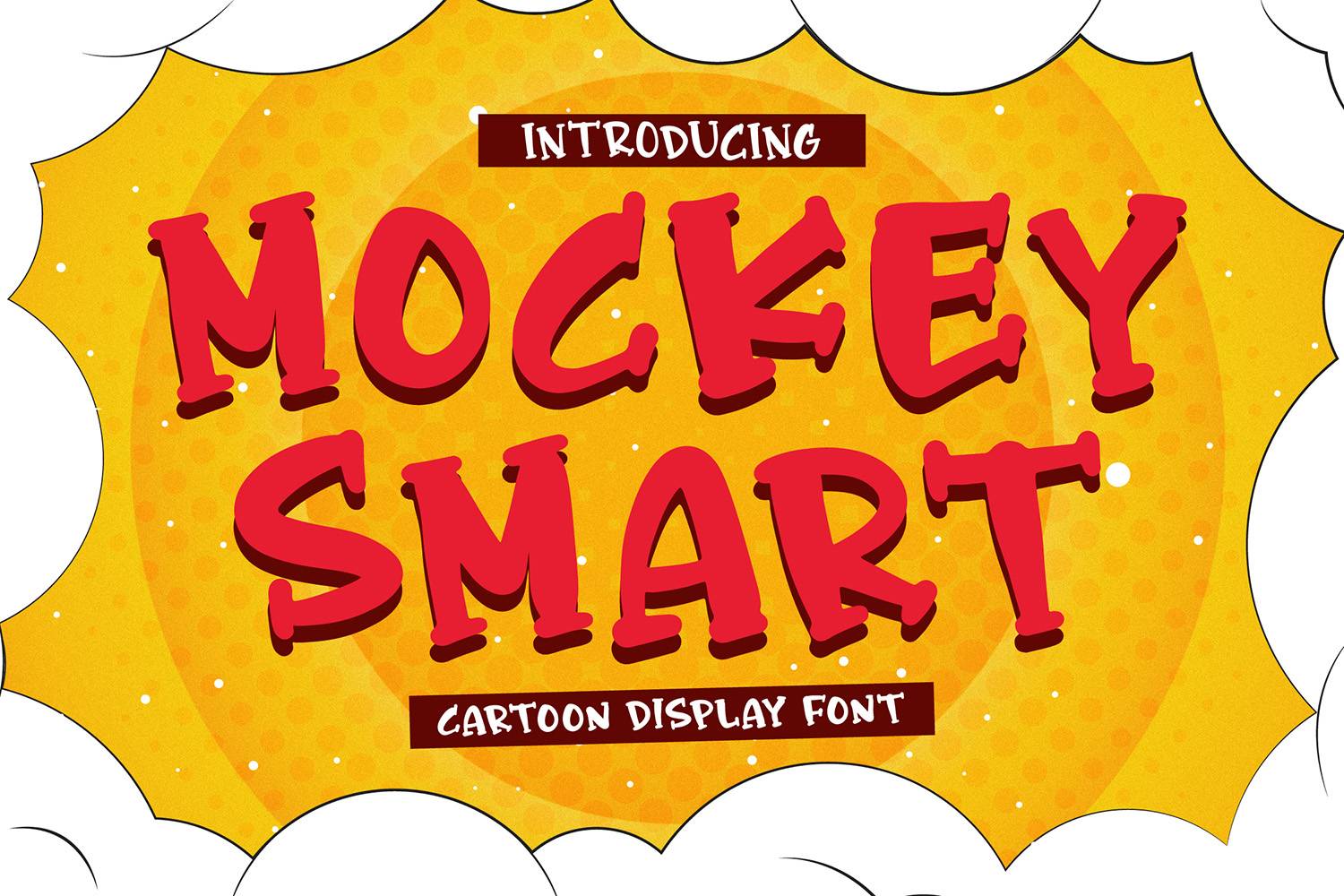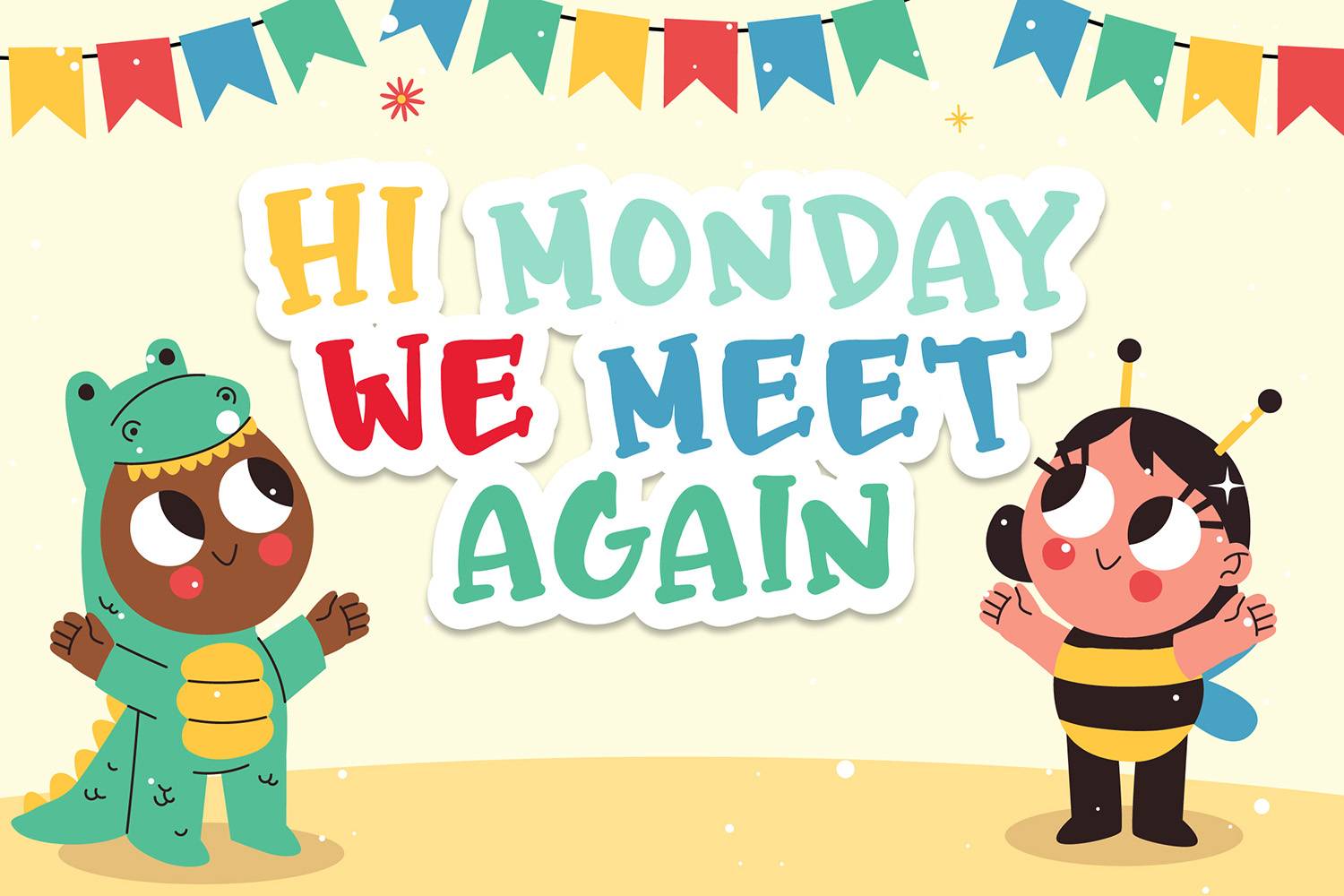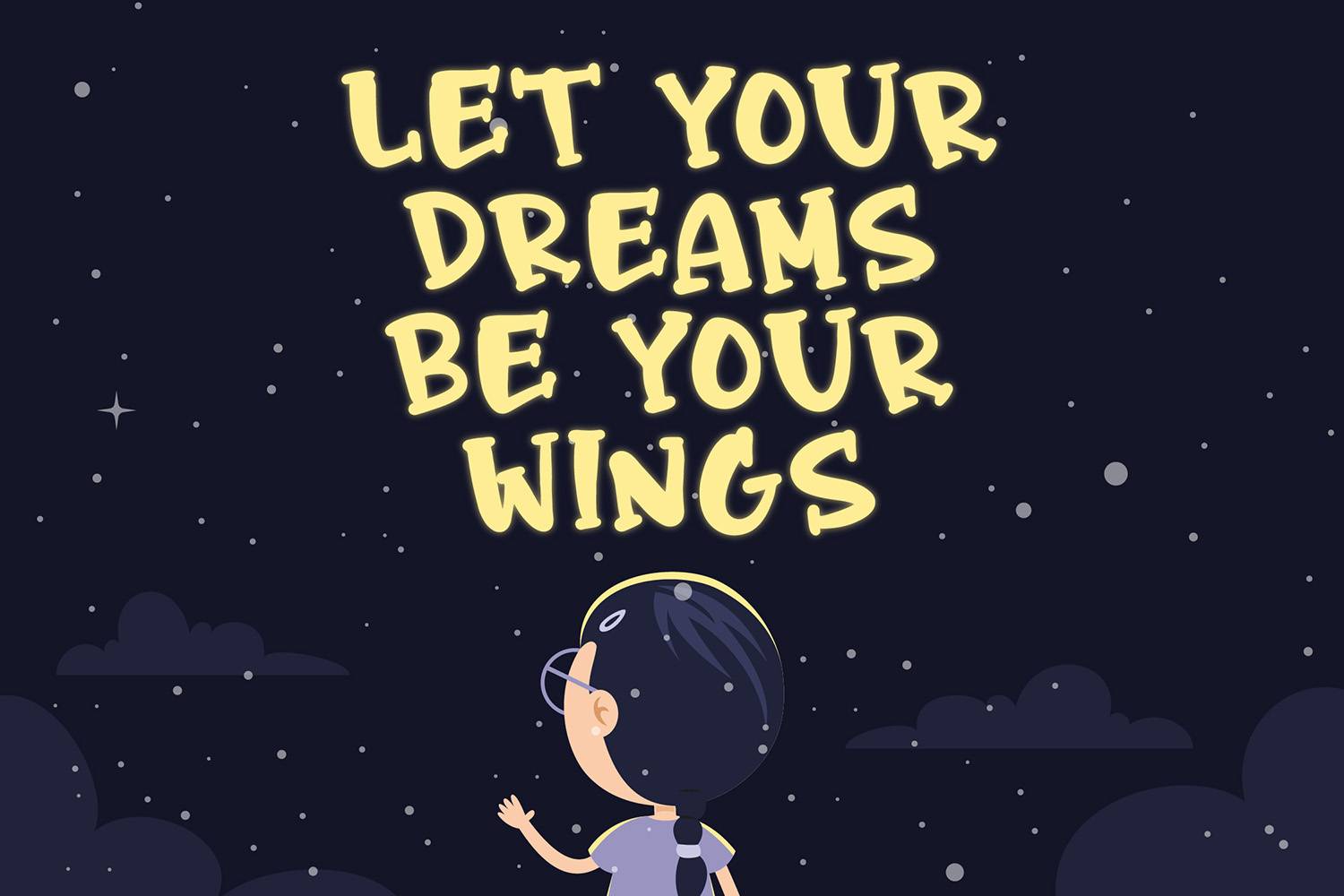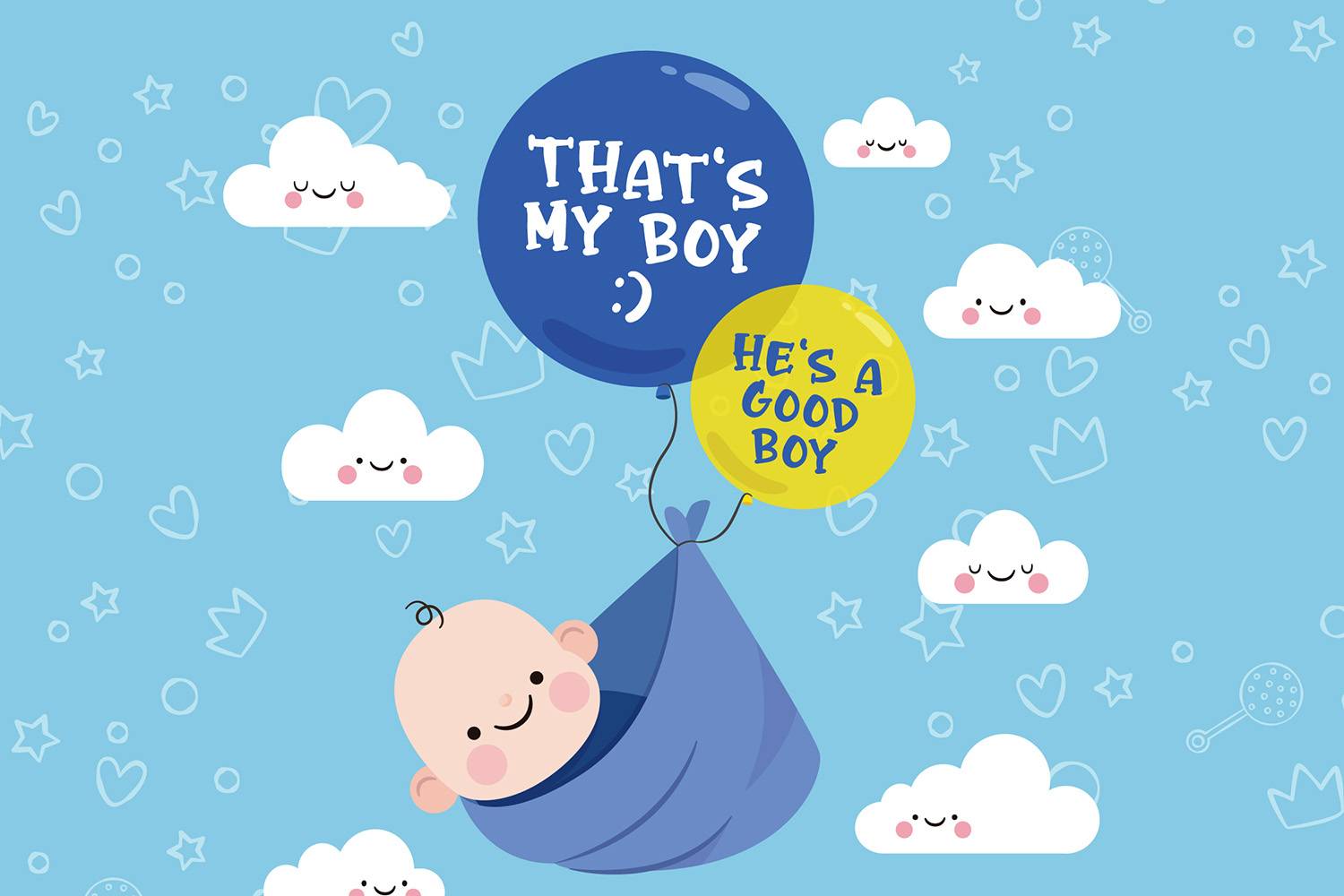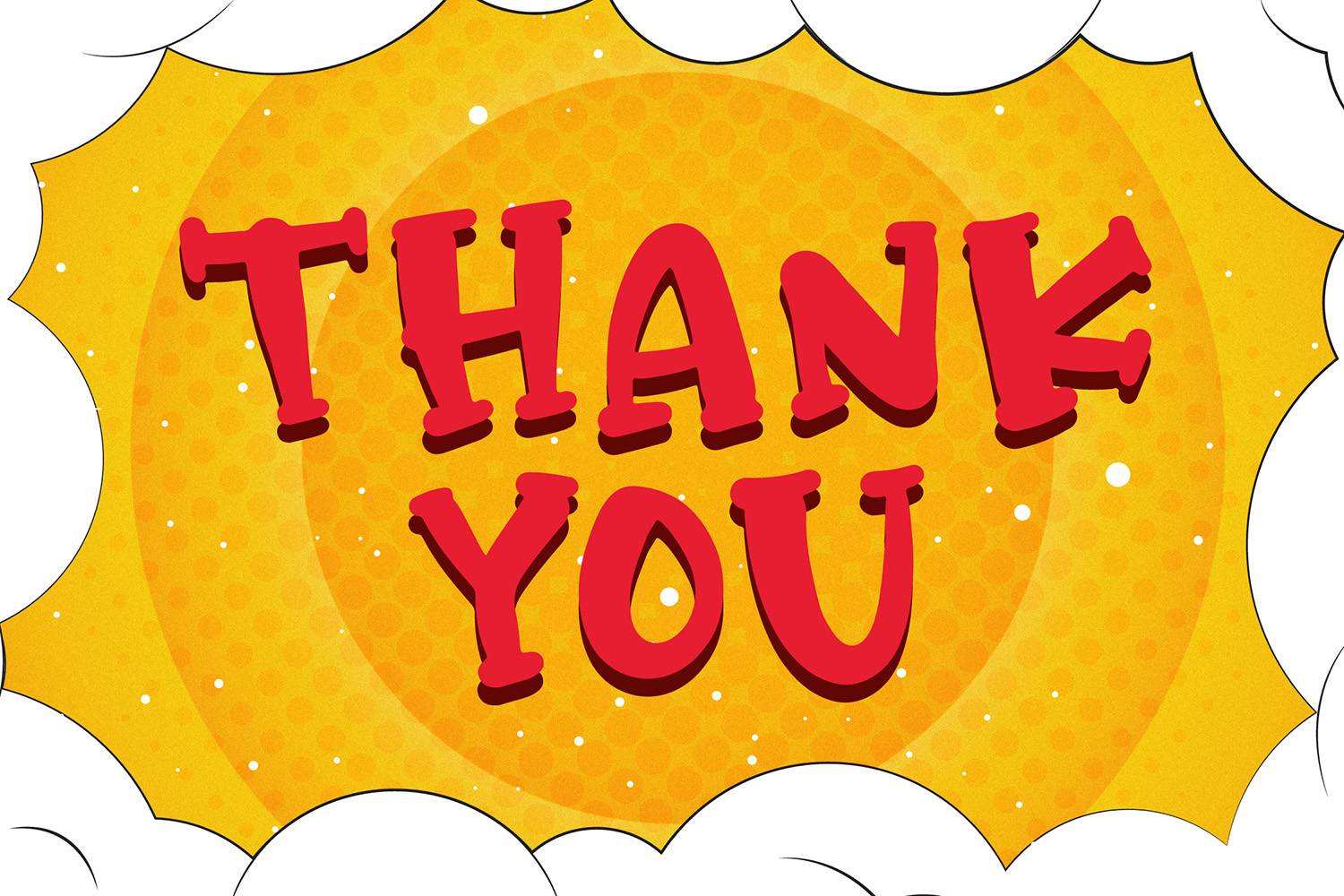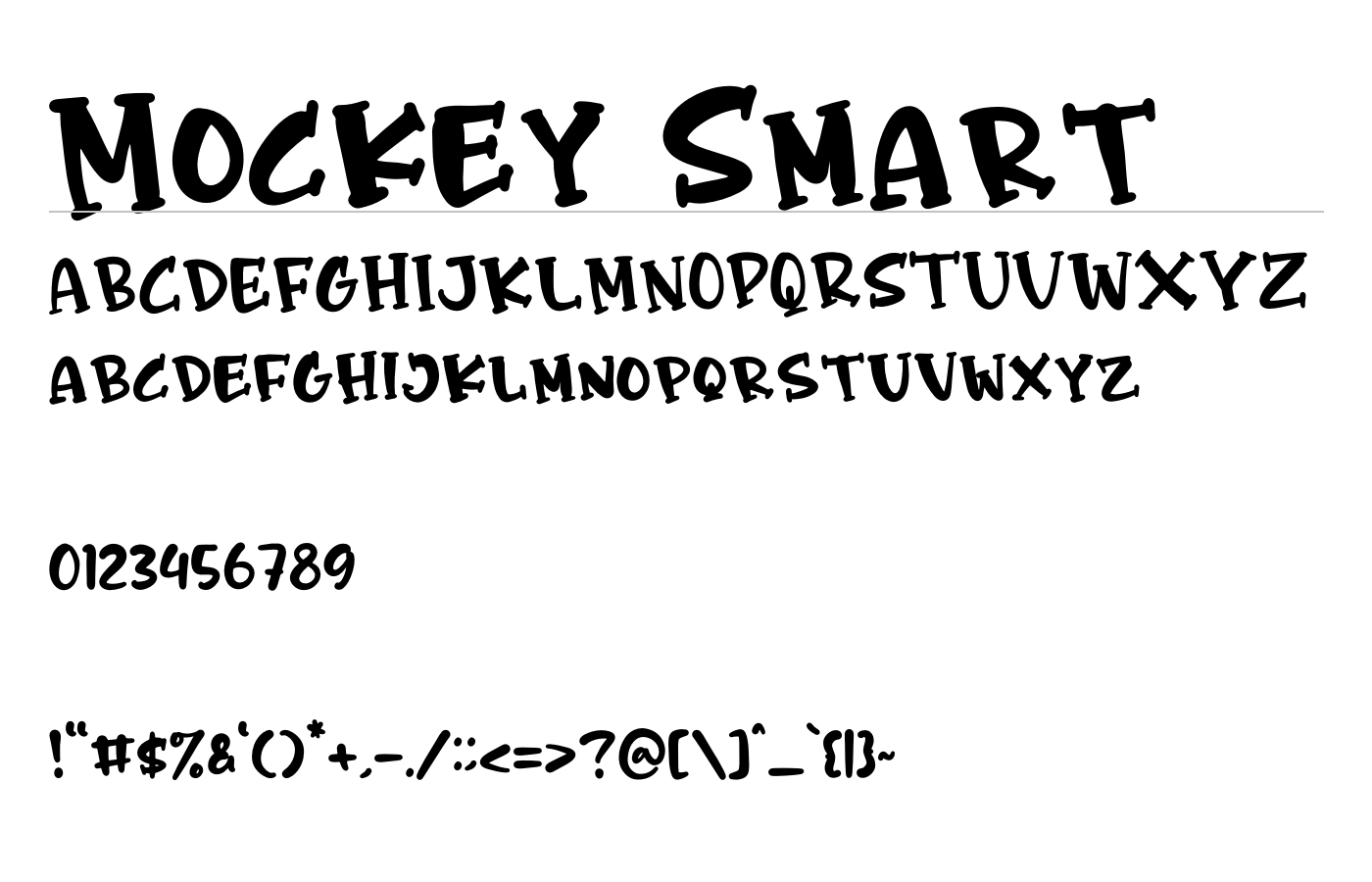
Mockey Smart is a playful and lively handwritten sans serif font with a bold, chunky weight and slightly condensed letterforms. Its whimsical style and irregular strokes give it a casual, friendly feel, making it ideal for fun, creative designs like posters, children’s books, or informal branding. This font works best in headlines or short text where its unique character can shine and add personality.
Mockey Smart Font
About Mockey Smart Font